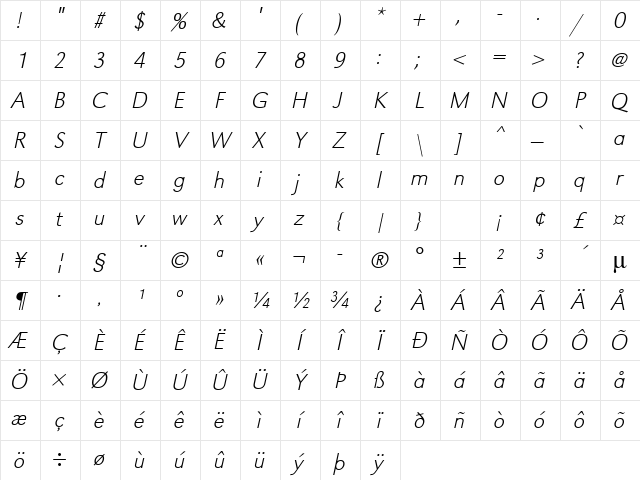
Design Context for URWGroteskTExtLig
URWGroteskTExtLig takes a clean, functional approach - its unadorned letterforms prioritise legibility and work reliably across screen and print environments. The slanted form adds forward momentum and visual energy.
Font Pairing: Works well alongside a characterful serif or display font that can carry the expressive load while URWGroteskTExtLig handles the functional copy.
Pro Tip: Use URWGroteskTExtLig for UI labels, navigation, and short-form body copy where clean legibility is the priority.